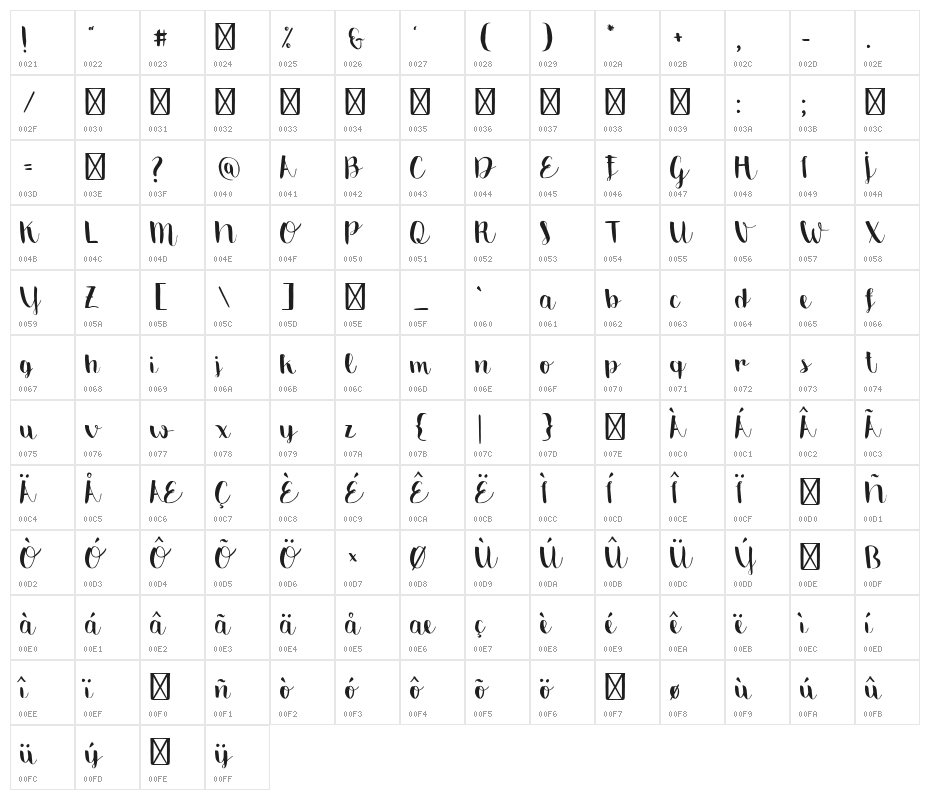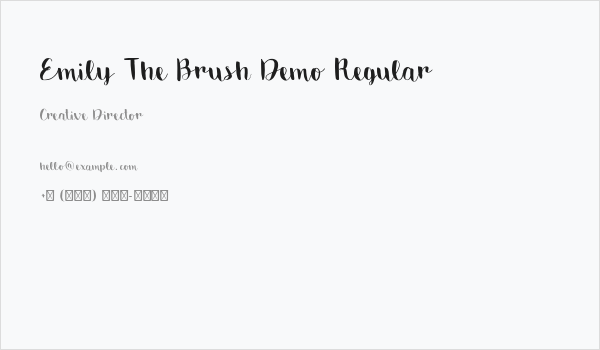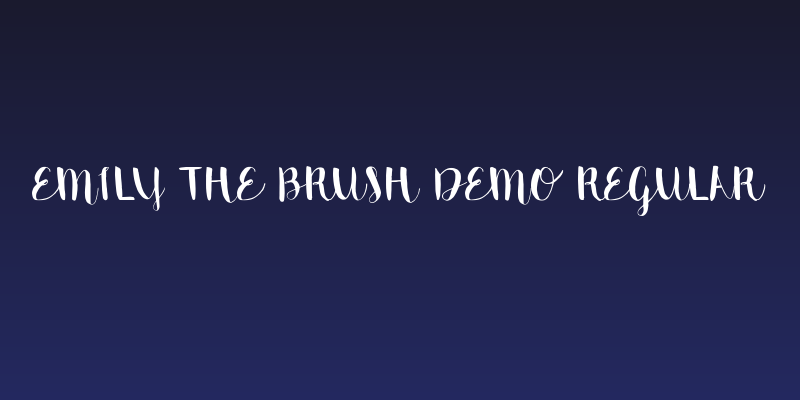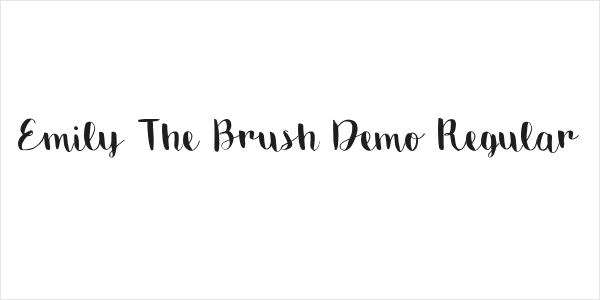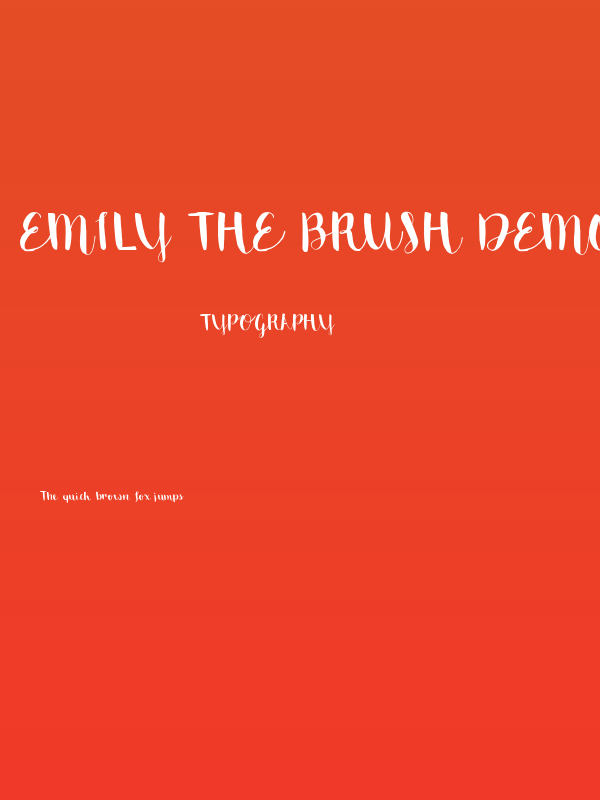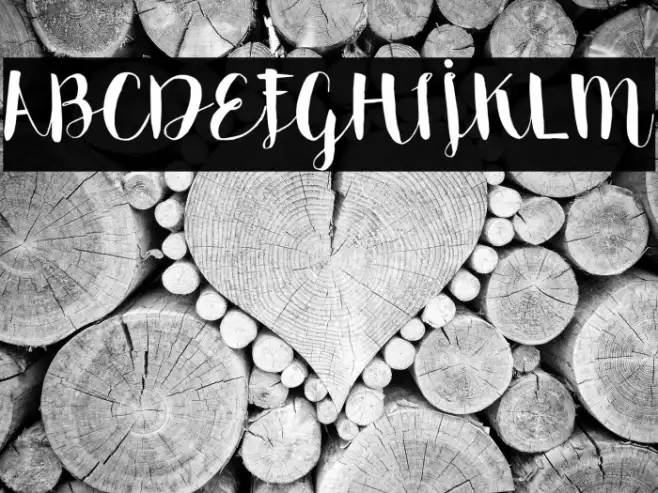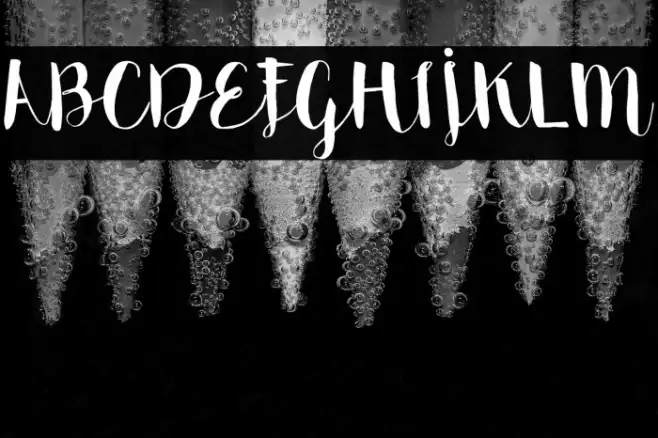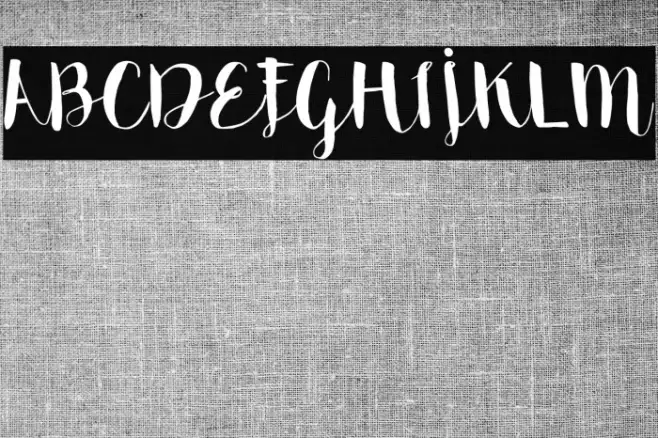
Emily The Brush Demo Regular Font
Emily The Brush Demo Regular Description
This font features a lively and expressive brush script style, characterized by its fluid and dynamic strokes. The uppercase letters are bold and sweeping, while the lowercase letters maintain a playful yet elegant flow. The font exhibits a handcrafted feel, with each character displaying unique curves and flourishes that add a personal touch. The overall appearance is both artistic and approachable, making it suitable for creative and informal applications. The special characters are designed to complement the letterforms, maintaining the same brush-like quality.
| Proposed Projects | Ideal for greeting cards, invitations, branding, and social media graphics. |